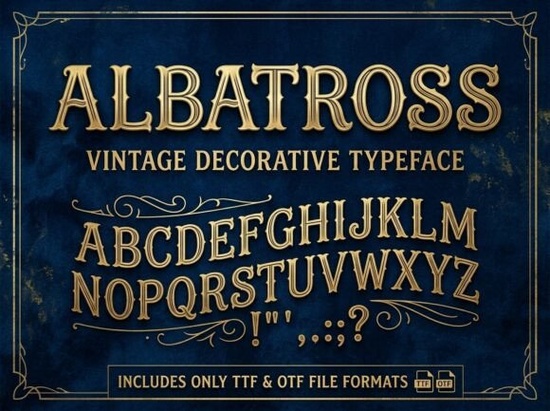
If you're looking for a decorative font that brings old-world charm to modern projects, Albatross Font stands out as a thoughtful choice. It’s not just another stylish typeface it’s a nod to the craftsmanship of the 1800s, perfect for designs that want to feel timeless and intentional. Whether you’re creating a boutique label, a book cover, or a wedding invitation with character, this vintage-inspired display font adds instant depth.
What makes Albatross Font special?
At first glance, Albatross catches your eye with its elegant serifs and fine detailing. But it’s the subtle balance between strength and grace that sets it apart. The high-contrast strokes give it an engraved look like something carved into aged wood or metal. This effect works beautifully in print, on packaging, or in digital designs where visual impact matters.
The font includes ornamental flourishes and classic spurred endings, all carefully crafted to reflect the style of late 19th-century typography. These details aren’t just decorative; they help convey mood and authenticity. If you're designing for a brand inspired by heritage, maritime history, or artisanal quality, Albatross supports that story naturally.
Where can you use Albatross Font effectively?
- Branding & logos: Great for apothecaries, craft distilleries, or independent boutiques aiming for a refined, nostalgic feel.
- Book titles & covers: Perfect for historical fiction, travel memoirs, or any project with a “heritage-revival” theme.
- Print-on-demand items: Ideal for mugs, posters, greeting cards, and wall art with vintage appeal.
- Wedding stationery: Works well in monograms or headers when paired with simpler fonts for contrast.
You’ll find that Albatross shines best when used sparingly on headlines, titles, or focal points. Using it for long blocks of text isn’t recommended, as the intricate details can become hard to read. Instead, let it lead the design with confidence.
How does it compare to other decorative fonts?
While many decorative fonts lean toward boldness or whimsy, Albatross walks a more restrained path. It’s not flashy, but it’s rich in detail. Compared to something like Dragon Font, which leans into fantasy and drama, Albatross feels grounded in real historical design. And while Royal Blade carries a regal, almost medieval tone, Albatross is more about delicate precision and quiet elegance.
Why designers and small creators love this font
One reason Albatross is popular among creatives is how well it performs across different formats. It scales cleanly from small icons to large banners. You’ll get consistent results whether you’re designing a social media post or a printed poster. The OpenType features (like ligatures and alternate characters) add flexibility without complexity.
For print-on-demand sellers, this means less tweaking and more consistency. For hobbyists, it’s a way to elevate handmade projects without needing advanced design skills. And for small businesses, it offers a professional edge without the cost of custom lettering.
Start small. Use Albatross for a single heading or logo element. See how it changes the mood of your design. Then build from there. Keep your goal in mind authenticity, craftsmanship, and timeless style and let the font support that vision.